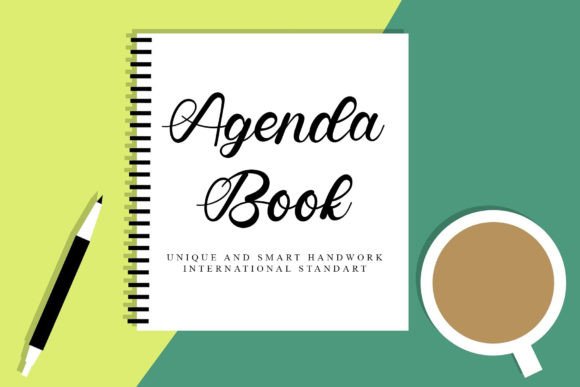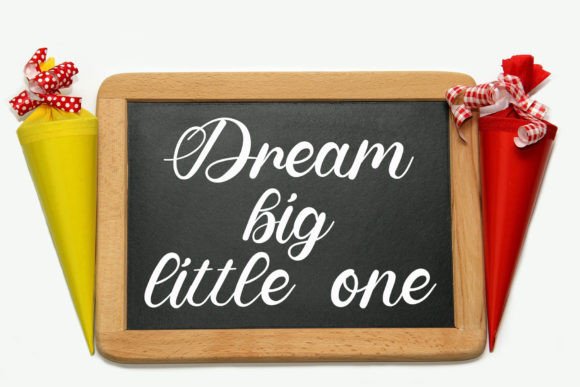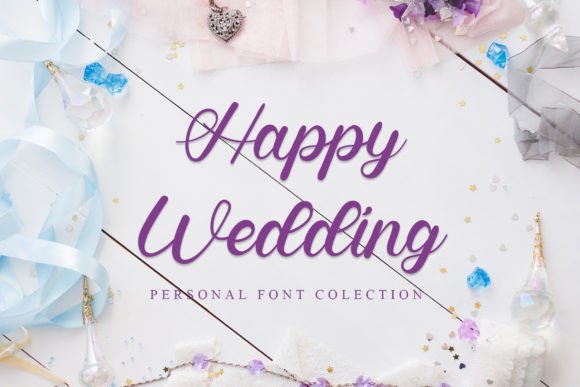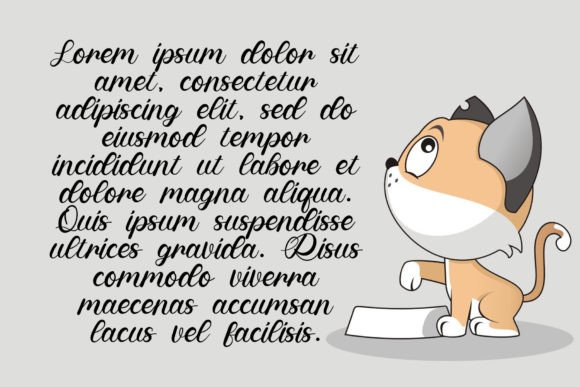
Introducing Child Font: The Elegant and Unique Handwritten Font
Are you looking for a font that adds a touch of elegance and sophistication to your designs? Look no further than Child Font, a unique and elegant handwritten font that is perfect for a variety of design projects. In this article, we’ll take a closer look at Child Font, its features, and how it can elevate your designs.
What is Child Font?
Child Font is a beautifully crafted handwritten font that is designed to give your designs a personal and natural touch. Its unique and elegant style makes it perfect for wedding invitations, greeting cards, billboards, logos, business cards, and any other design that requires a handwritten touch.
Key Features of Child Font
- Varied Baseline: Child Font features a varied baseline, which gives it a natural, hand-made touch. This means that each letter and word has a unique and organic feel, making your designs stand out from the crowd.
- PUA Encoded: Child Font is PUA (Private Use Area) encoded, which means that you can access all glyphs and swashes with ease. This makes it easy to customize your designs and add your own personal touch.
- Elegant and Unique: Child Font has an elegant and unique style that is perfect for designs that require a touch of sophistication. Its handwritten feel makes it perfect for wedding invitations, greeting cards, and other special occasions.
Uses of Child Font
Child Font is a versatile font that can be used for a variety of design projects, including:
- Wedding Invitations: Child Font is perfect for wedding invitations, adding a touch of elegance and sophistication to your designs.
- Greeting Cards: Child Font is great for greeting cards, allowing you to create personalized and unique designs for special occasions.
- Billboards: Child Font can be used for billboards, adding a touch of elegance and sophistication to your outdoor advertising.
- Logos: Child Font can be used to create unique and elegant logos for businesses and brands.
- Business Cards: Child Font is perfect for business cards, allowing you to create professional and elegant designs that make a lasting impression.
Why Choose Child Font?
There are many fonts available, but Child Font stands out from the crowd due to its unique and elegant style. Here are a few reasons why you should choose Child Font for your designs:
- Unique Style: Child Font has a unique and elegant style that is perfect for designs that require a touch of sophistication.
- Ease of Use: Child Font is PUA encoded, making it easy to access all glyphs and swashes.
- Versatility: Child Font can be used for a variety of design projects, from wedding invitations to billboards.
Tips for Using Child Font
Here are a few tips for using Child Font in your designs:
- Experiment with Different Sizes: Child Font looks great in a variety of sizes, so experiment with different sizes to find the one that works best for your design.
- Pair with Other Fonts: Child Font can be paired with other fonts to create a unique and interesting design.
- Use Swashes and Glyphs: Child Font has a range of swashes and glyphs that can be used to add a personal touch to your designs.
Child Font is a unique and elegant handwritten font that is perfect for designers and crafters looking to add a touch of sophistication to their designs. With its varied baseline, PUA encoding, and elegant style, Child Font is perfect for a variety of design projects, from wedding invitations to billboards. Whether you’re a professional designer or a crafter, Child Font is a great addition to your font collection.